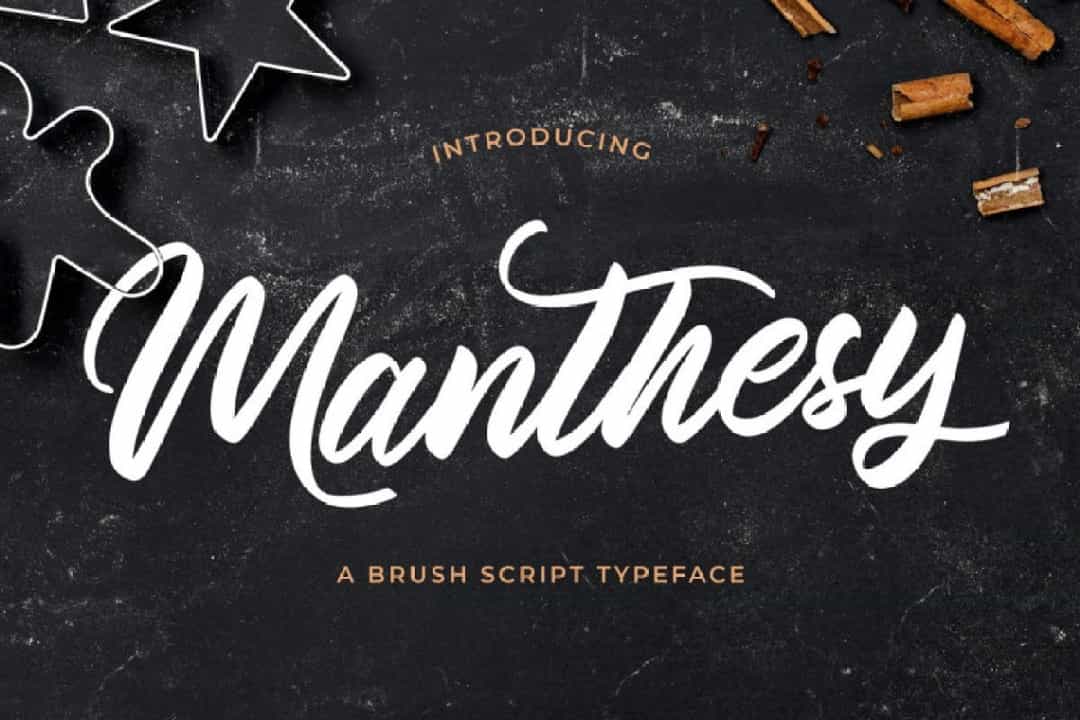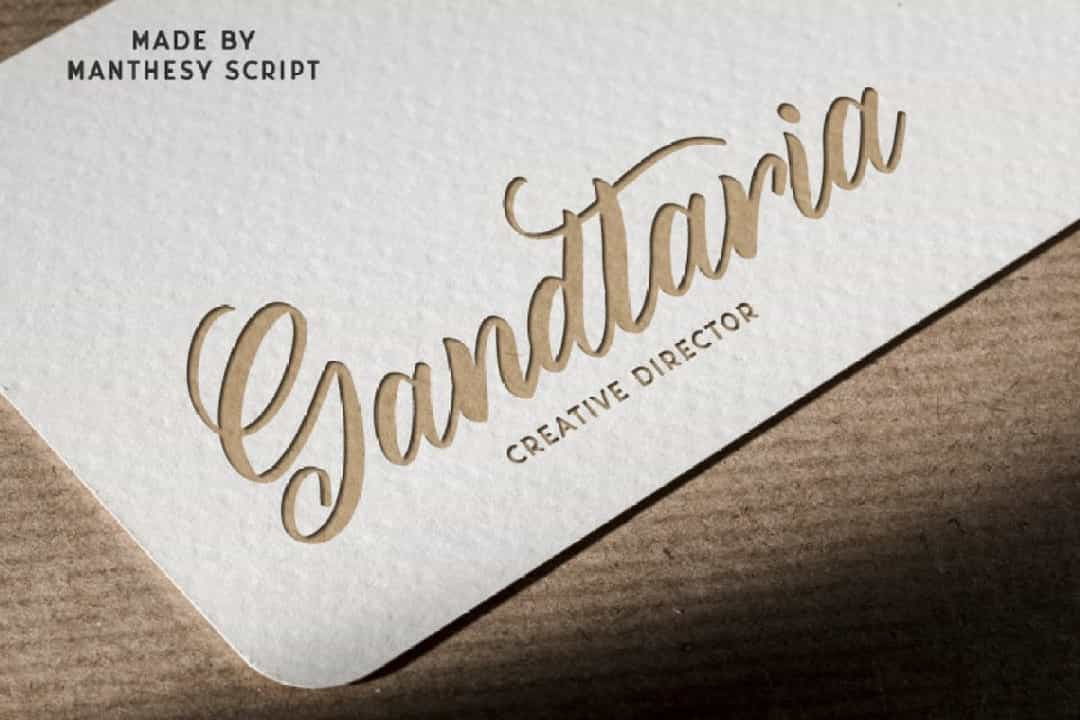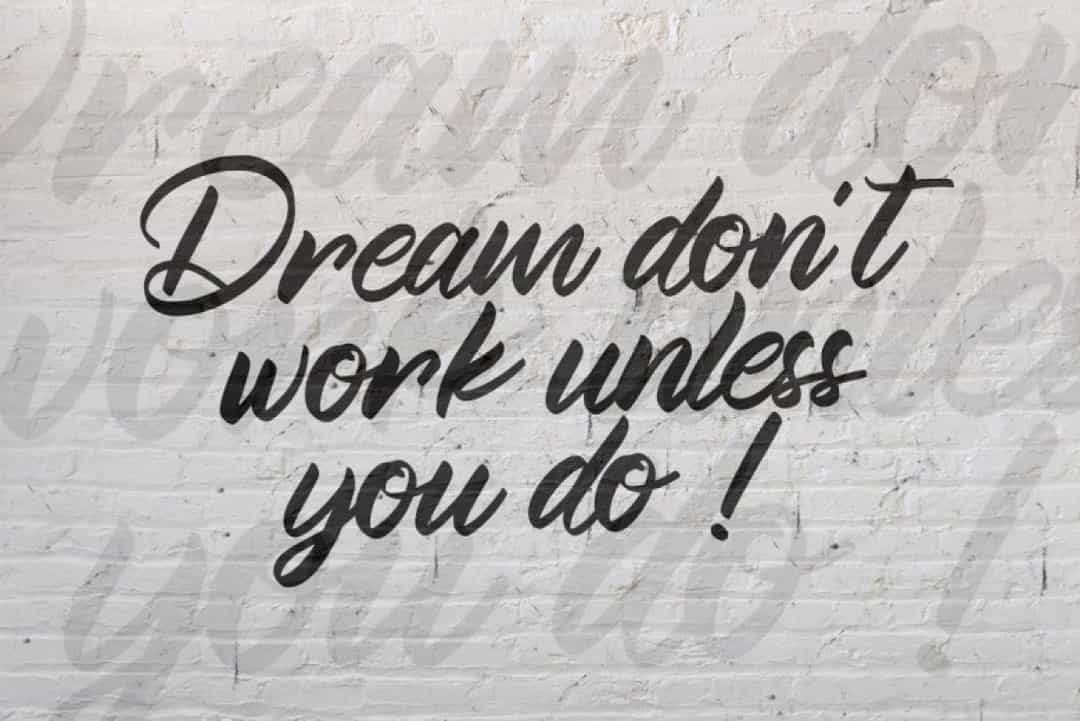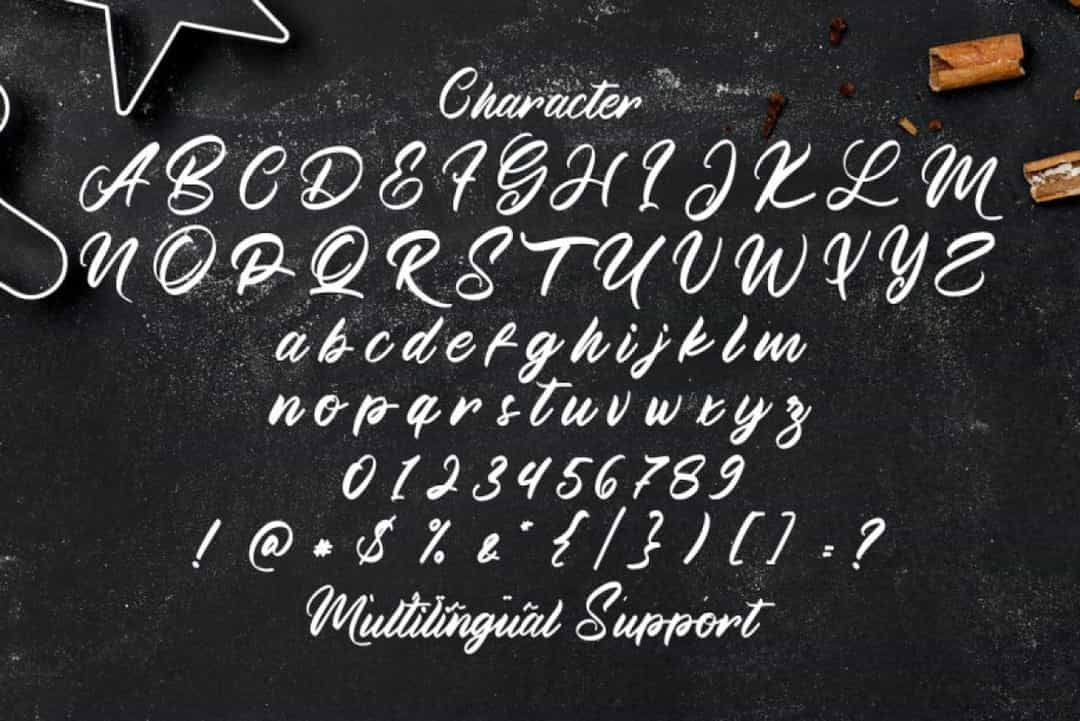
Manthesy can be described as beautiful handwritten and designed script font. It offers smooth, elegant and sophisticated feeling. It is suitable for every purpose. This modern calligraphic typeface invites the possibility of using it in any design needs, such as logos, cards, wedding invitations, headings signatures, t-shirt designs, letterhead cutting stickers hot printing, signage, labels posters and much more.